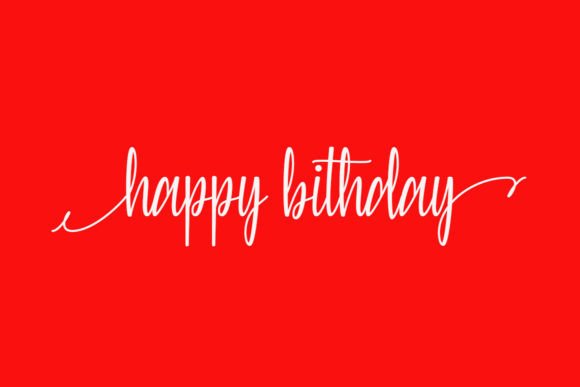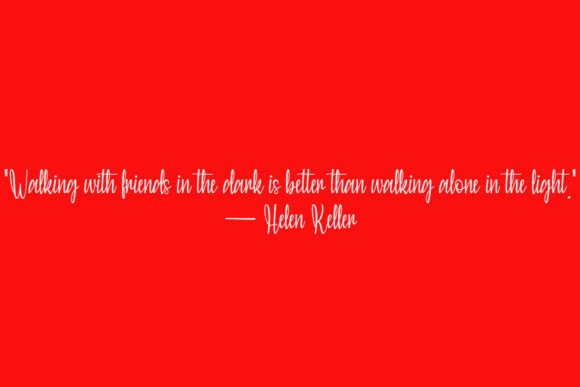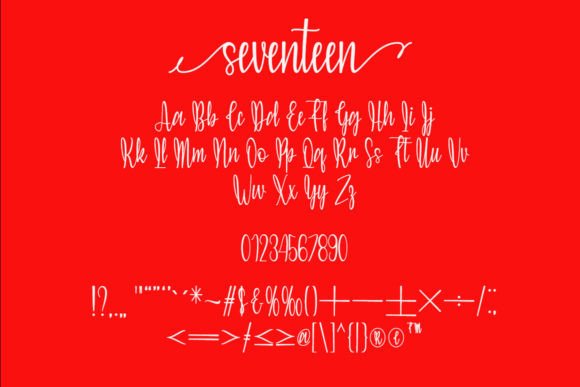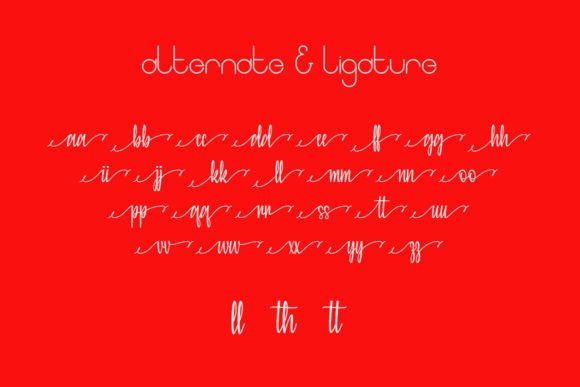
About Seventeen Font
Meet Seventeen, an enchanting handwritten font that brings a touch of magic to your creative projects. This versatile typeface opens up a wide spectrum of applications, making it suitable for everything from greeting cards to impactful headlines. What sets Seventeen apart is its PUA encoding, providing you with easy access to all the intricate glyphs and swashes it offers.
The enchantment of Seventeen lies in its handwritten charm. The characters gracefully dance across the page, creating an aesthetic that is not only visually appealing but also versatile enough to adapt to a range of design needs.
Greeting cards come to life with Seventeen, as its whimsical style adds a personalized and enchanting touch to your heartfelt messages. The font’s versatility shines through, making it suitable for conveying a spectrum of emotions and occasions.
When it comes to headlines, Seventeen stands out with its distinct and captivating presence. Whether you’re creating eye-catching titles for blog posts, articles, or marketing materials, this font adds an element of enchantment that draws readers in.
Seventeen’s PUA encoding ensures that you have seamless access to all the unique glyphs and swashes it offers. This feature enhances your creative freedom, allowing you to customize and embellish your designs effortlessly.
The versatility of Seventeen extends to a range of creative projects, making it a valuable addition to your design toolkit. From invitations to social media graphics, this font adapts to the needs of your projects, making them visually enchanting and memorable.
In summary, Seventeen is more than just a font; it’s a magical tool that adds enchantment to your designs. With its wide spectrum of applications and PUA encoding for easy access to glyphs and swashes, Seventeen empowers you to create captivating and personalized visuals. Choose Seventeen to infuse your projects with a touch of whimsy and make your designs truly enchanting.